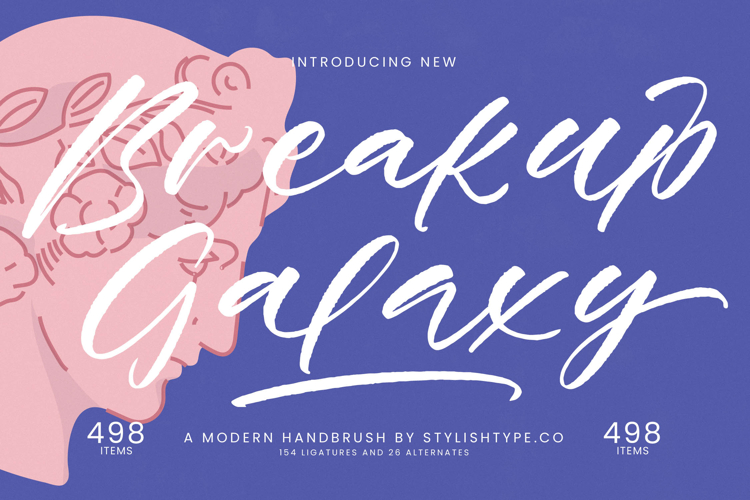
Breakup Galaxy - Modern Handbrush Font
Experience the raw energy of authentic craftsmanship captured in every stroke of Breakup Galaxy - Modern Handbrush Font. This signature typeface fuses the organic texture of real brushwork with a sleek, contemporary sensibility, creating a dynamic flow that demands attention. Featuring aggressive brush variance and striking weight contrast, this font is engineered to deliver a high-impact signature look, perfect for projects requiring expressive personality and uninhibited creative freedom.